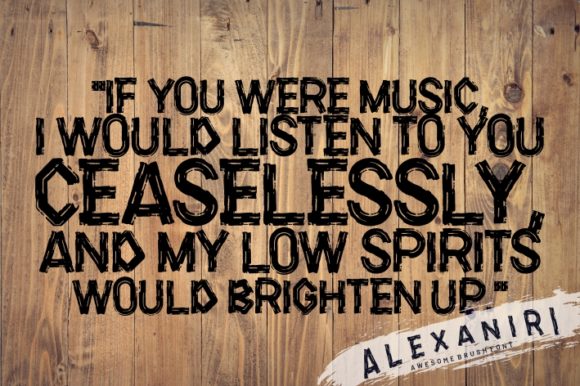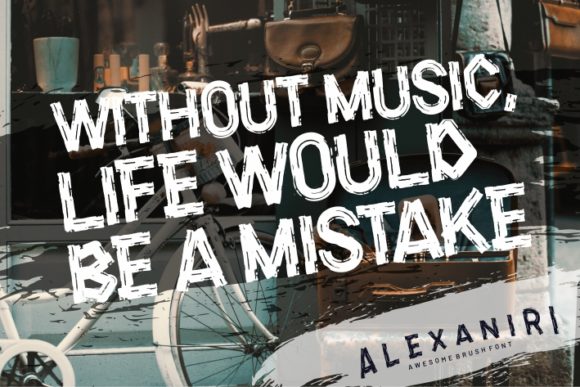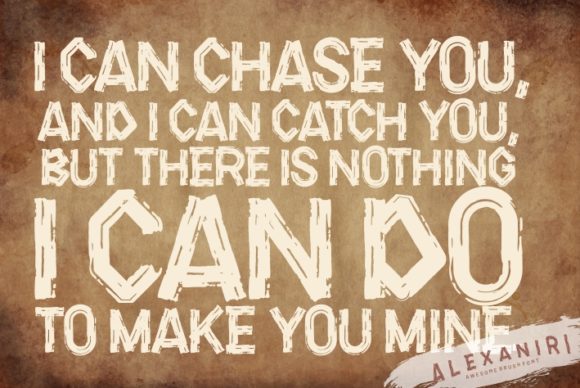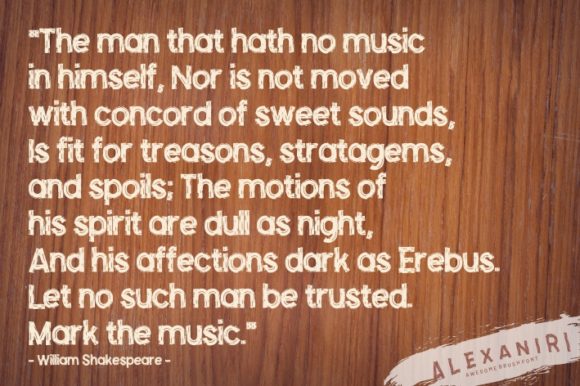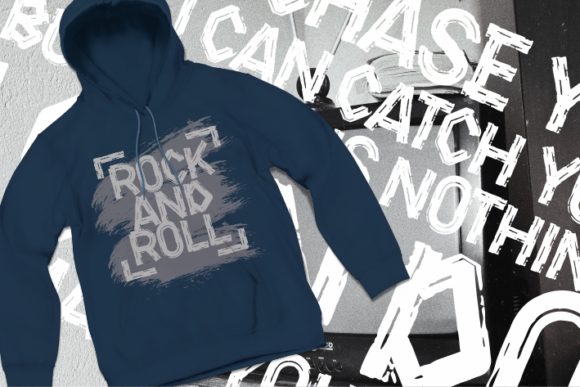
Alexaniri 2.0 Font
About Alexaniri 2.0 Font
Alexaniri 2.0 results out of a stunning pairing of a brush pen and pencil that makes it look incredibly endearing and authentic. Use this gorgeous and unique handwritten font to bring any DIY project to life!